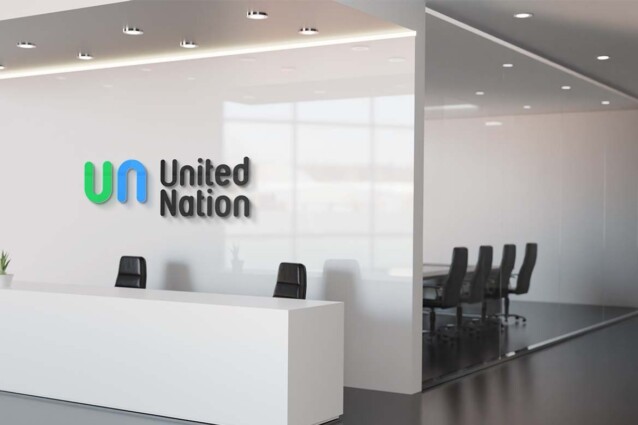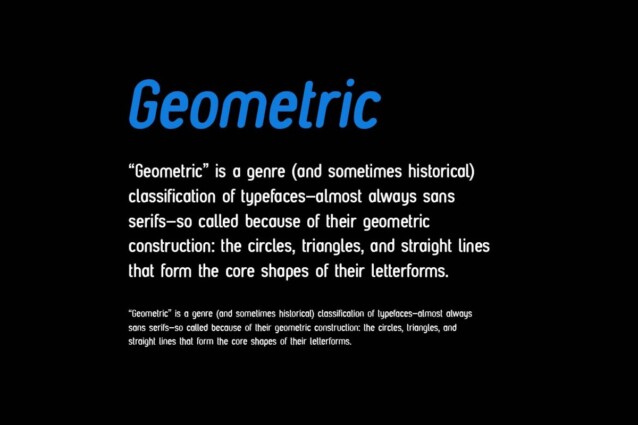
Headmong Rounded Font Family is a fresh and modern family of sans-serif fonts. Made from font designer named UICreative. This font is ideally suited for a wide variety of projects, such as signature, stationery, logo, wedding, typography quotes, magazine or book covers, website headers, branding, and more. Also, fashion-related branding or editorial design displays both masculine and feminine qualities.